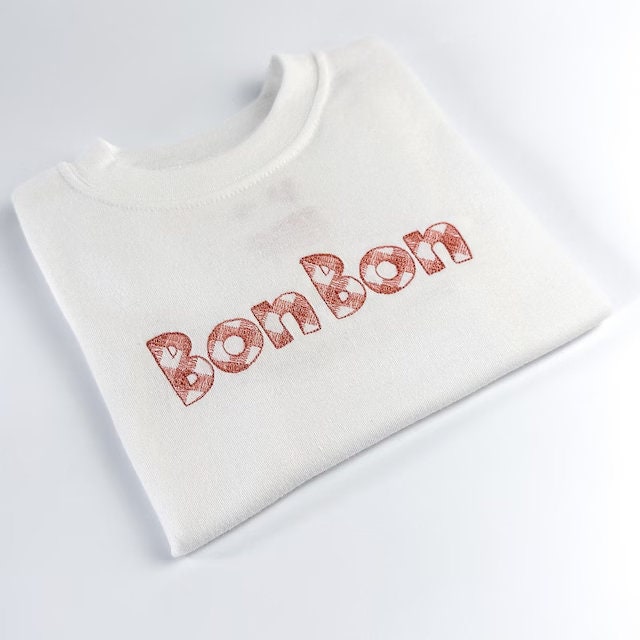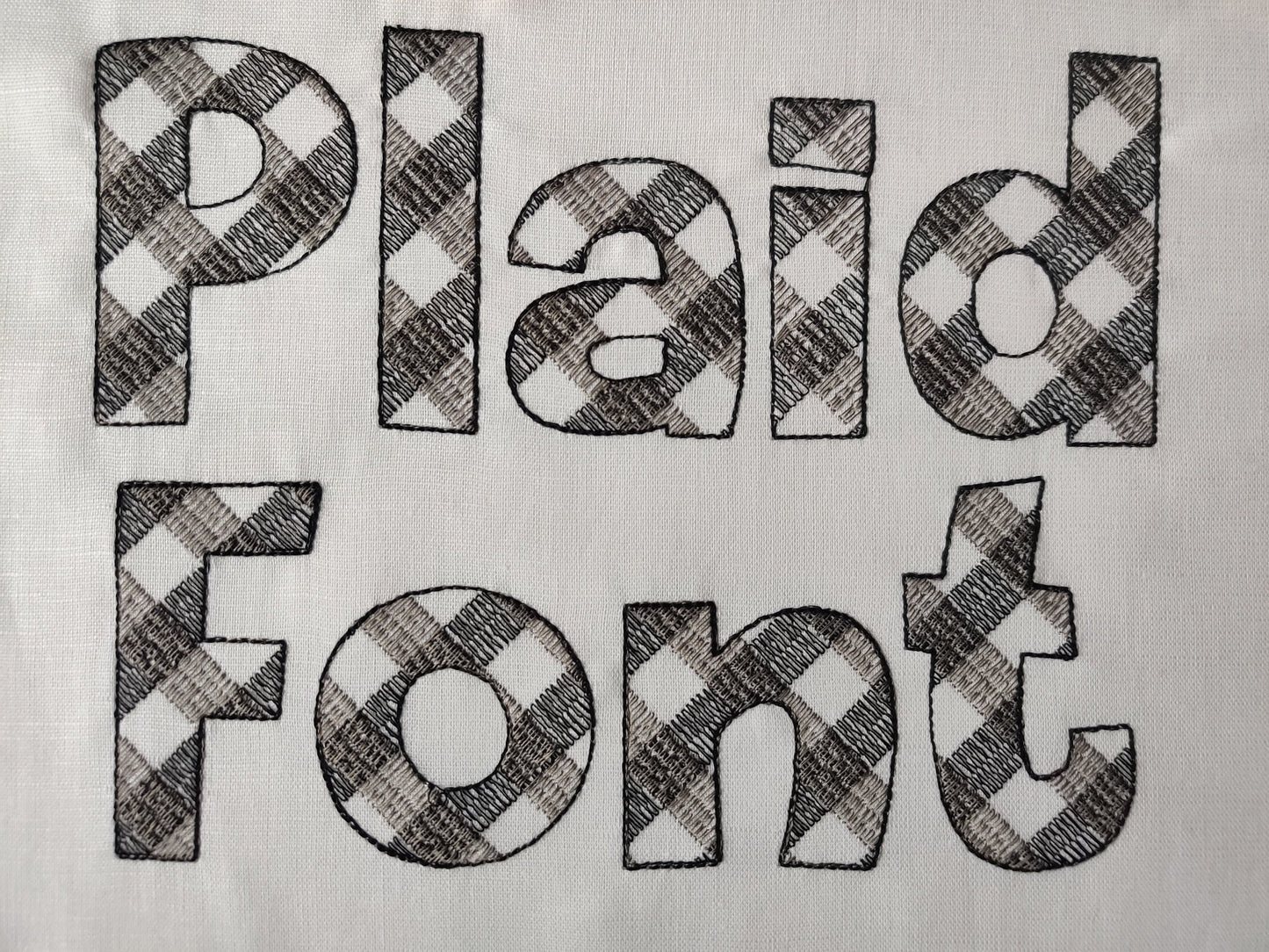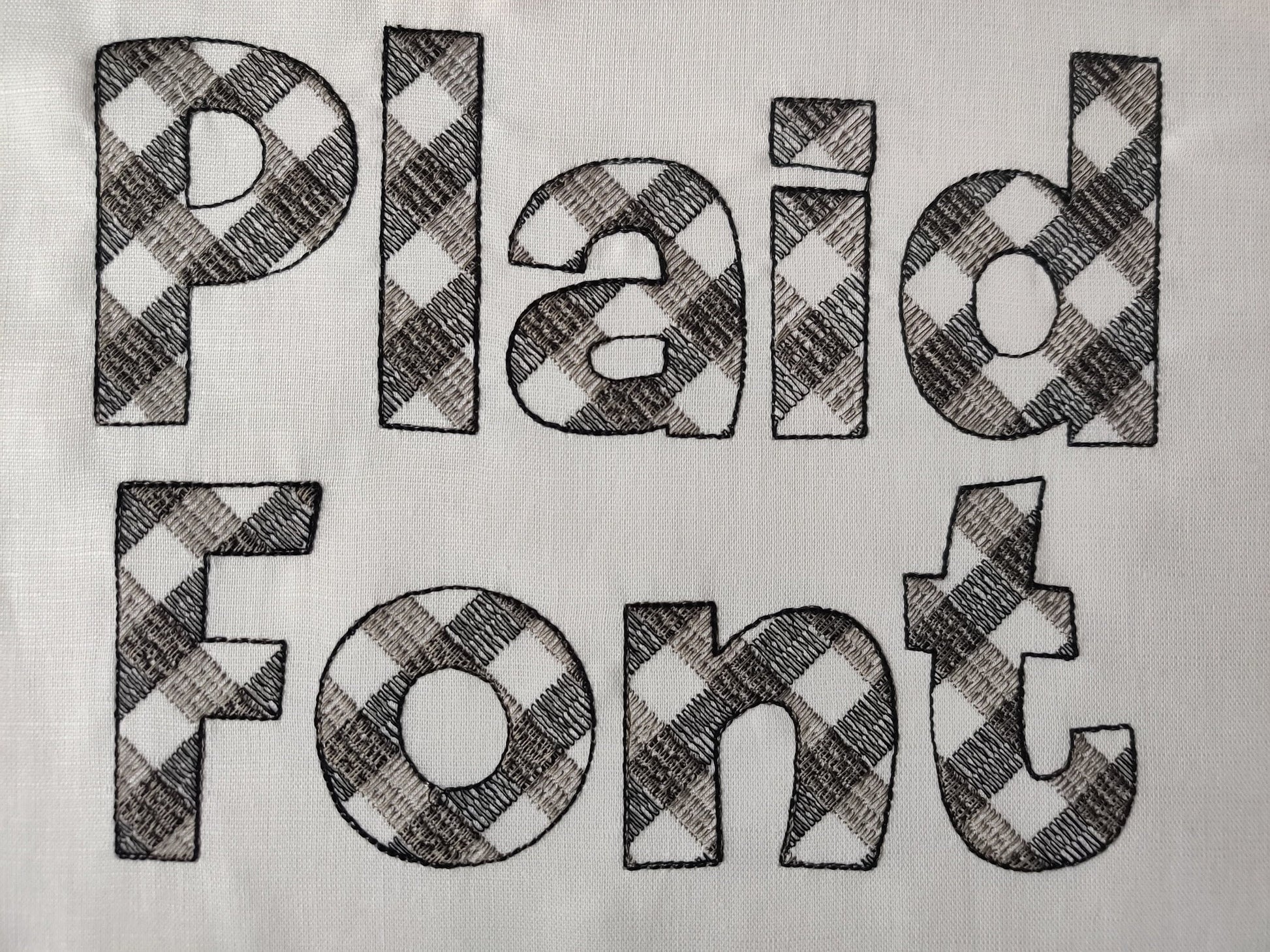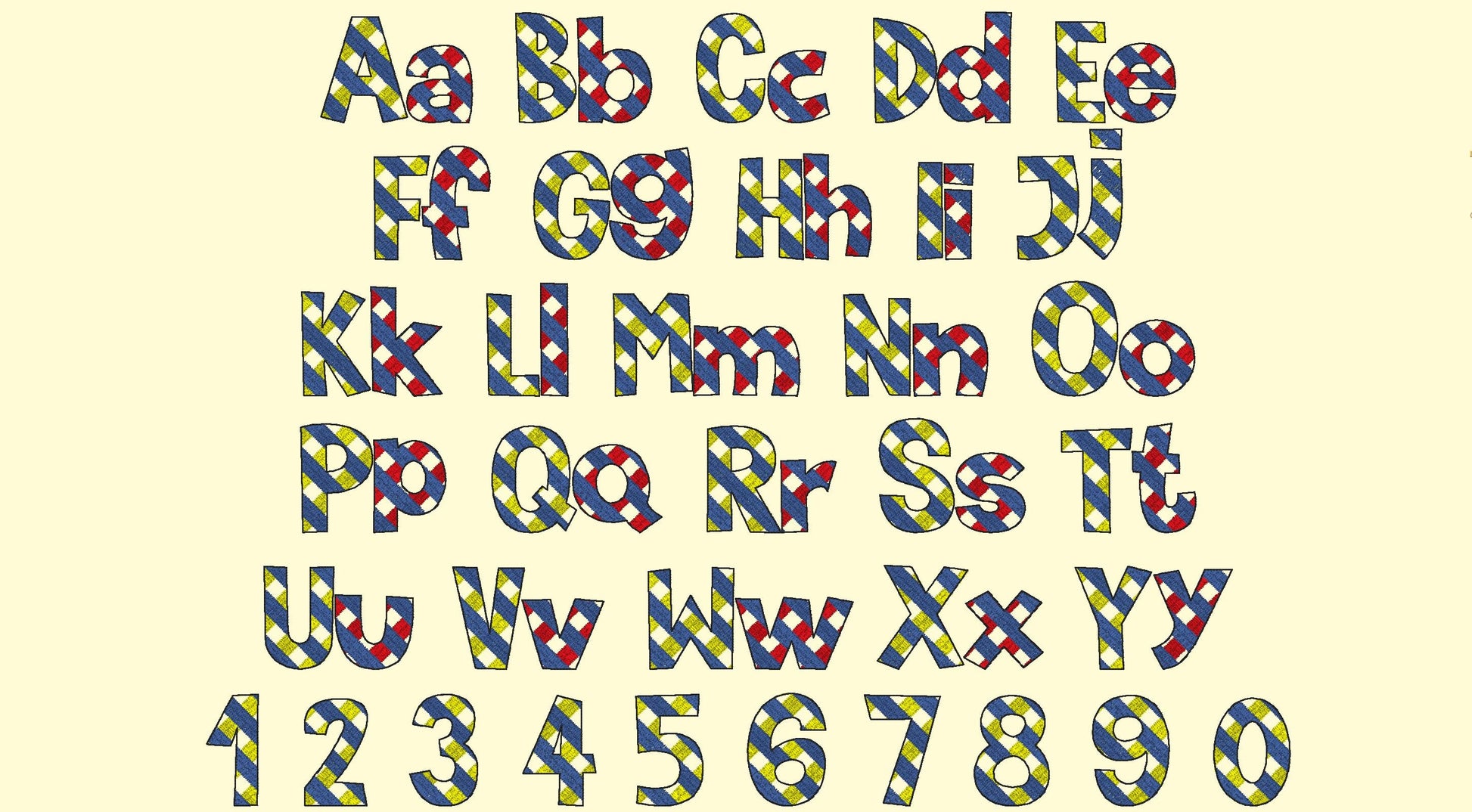
Or click to open the linkA buffalo plaid block font with a light sketch outline that looks like lace, for fall and Christmas names on pillows and stockings.
A quick stitch: the gingham lines are part of the embroidery and the fabric shows through. Uppercase and lowercase letters, numbers 0 to 9 and punctuation in eight sizes: 1.6, 1.9, 2.3, 2.6, 3.4, 3.9, 5.1 and 6.6 inches.